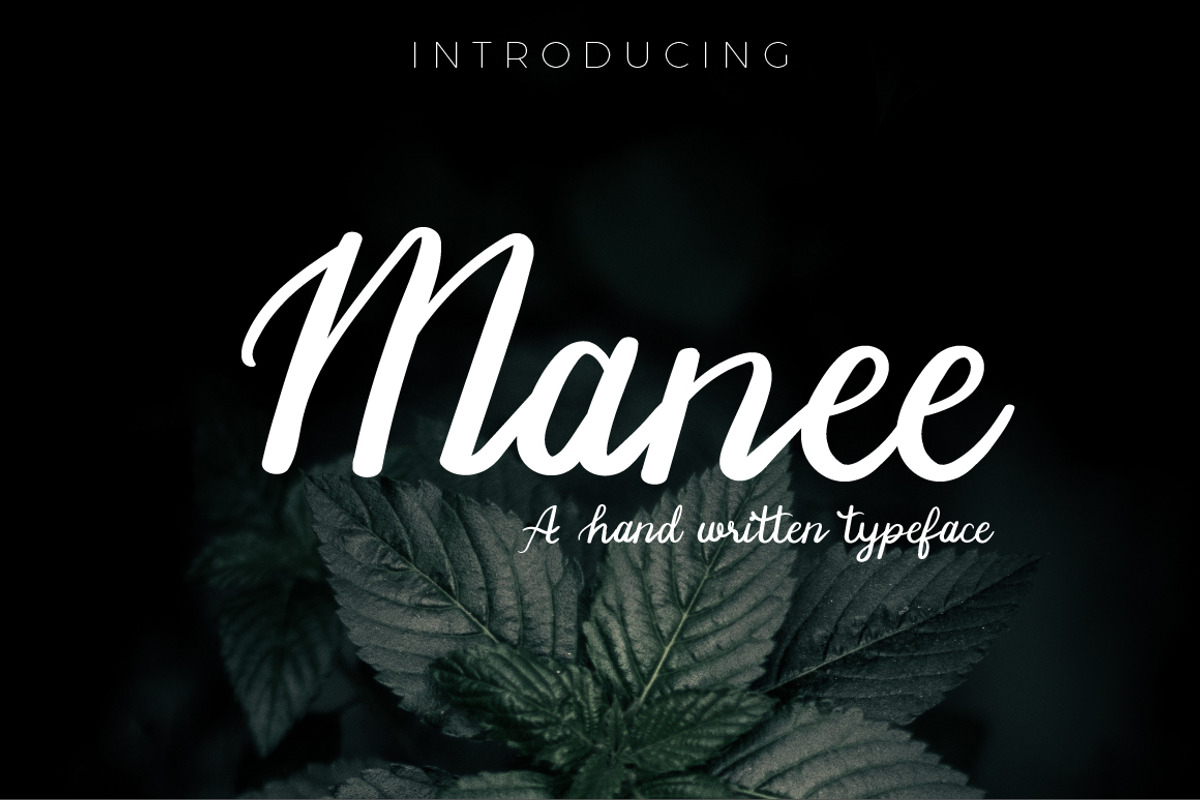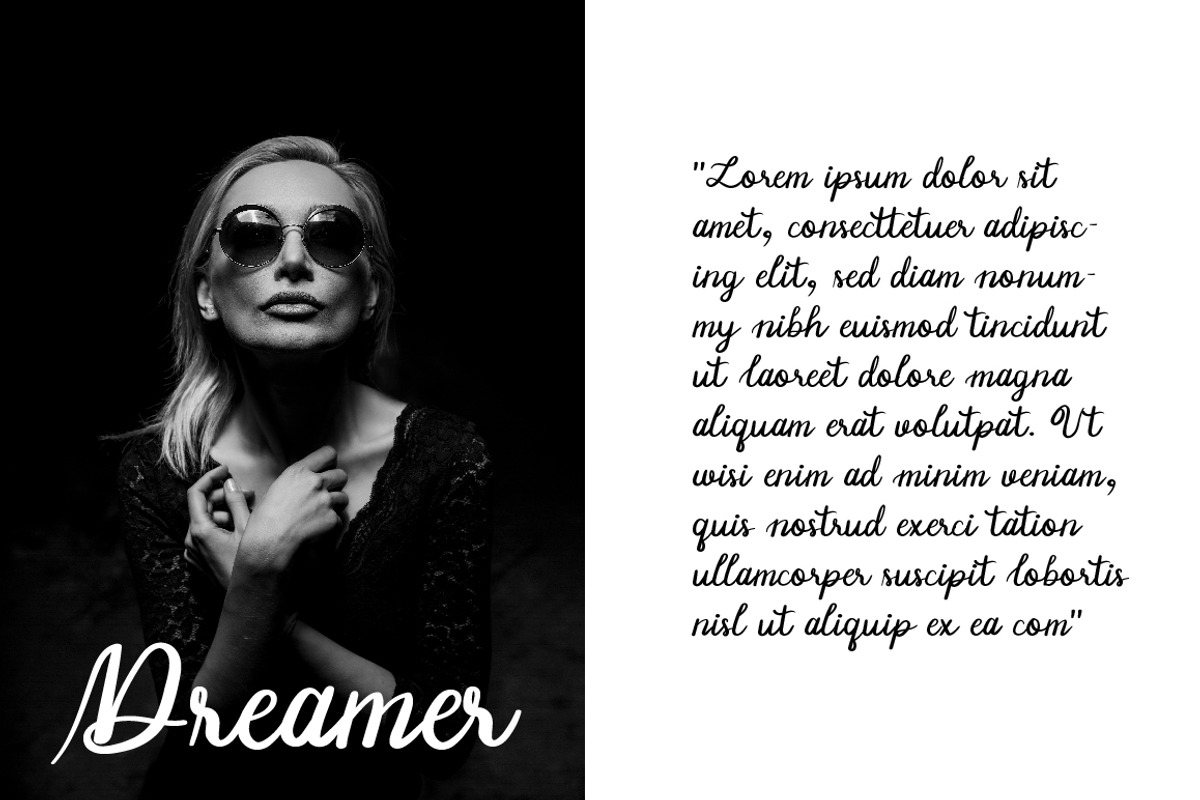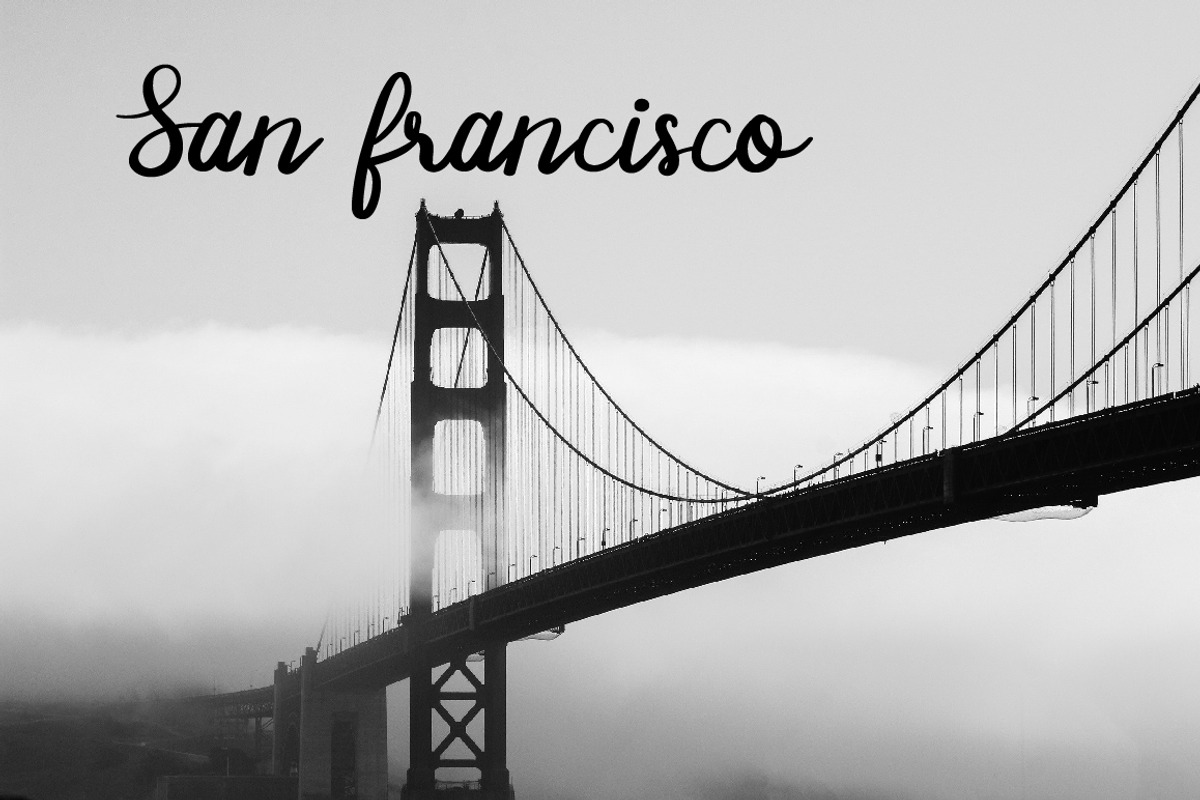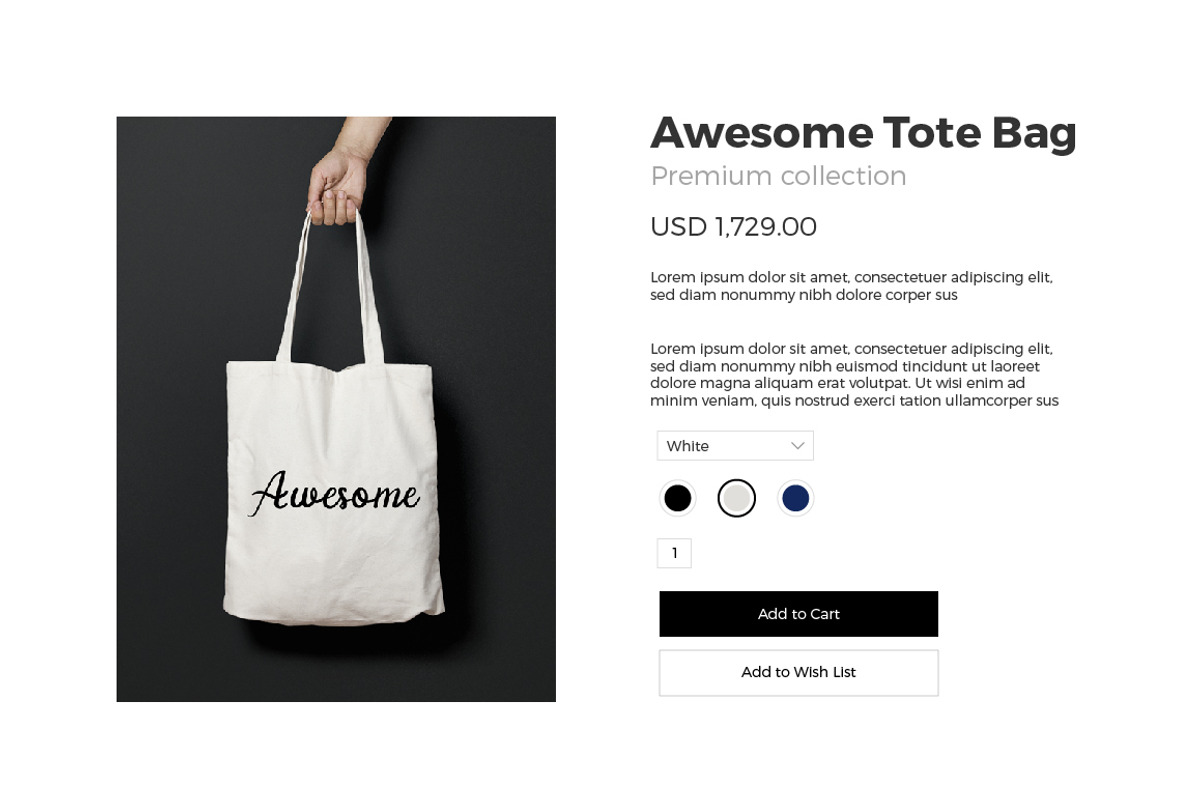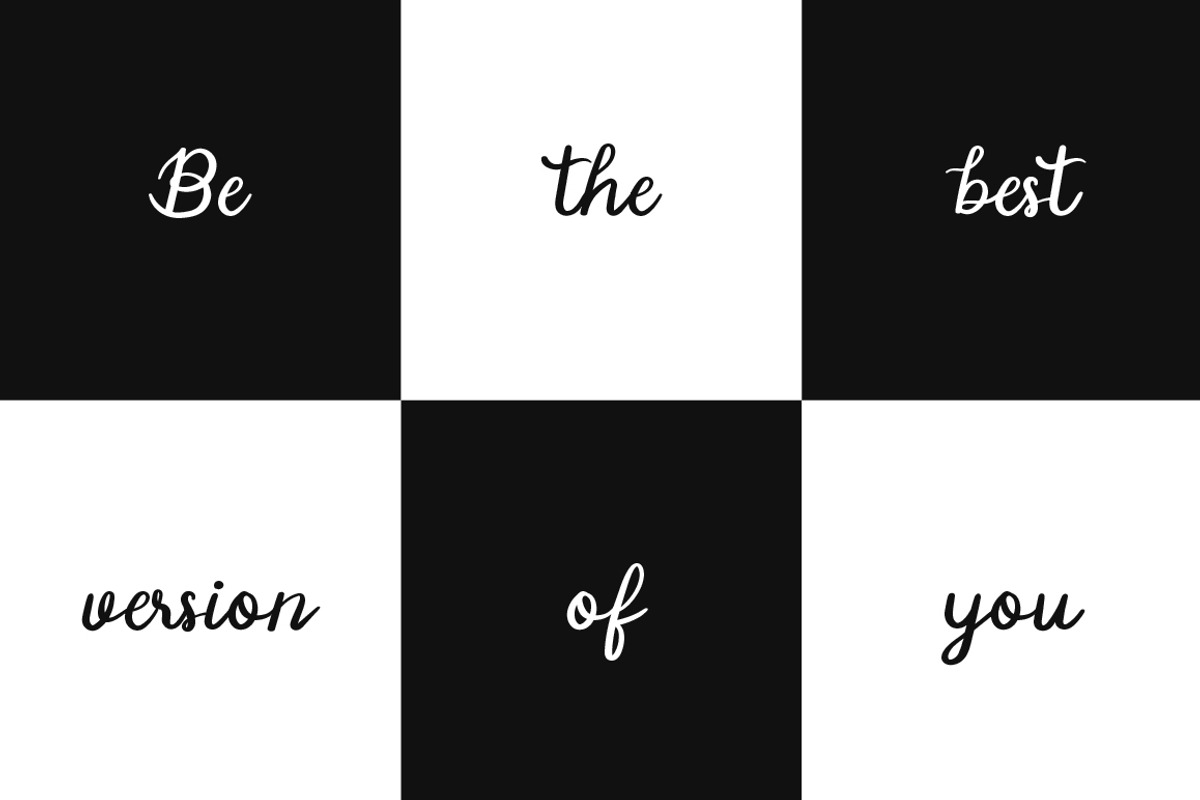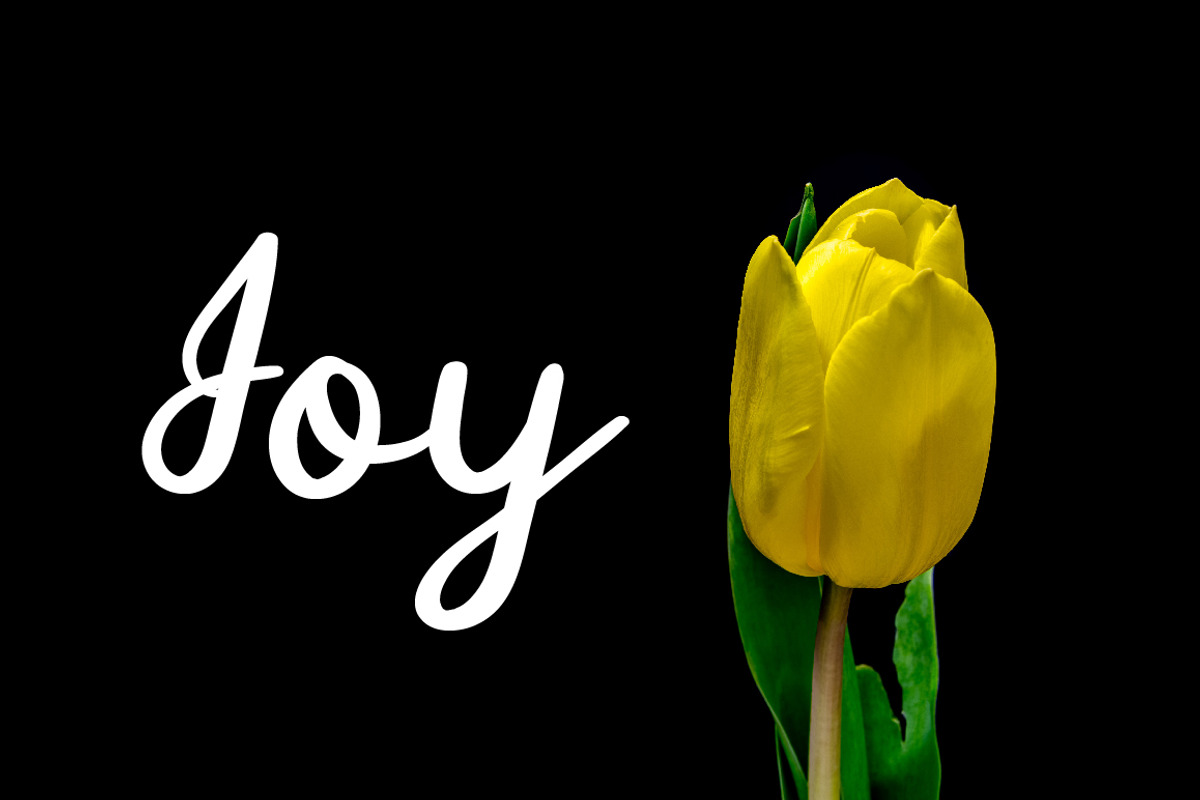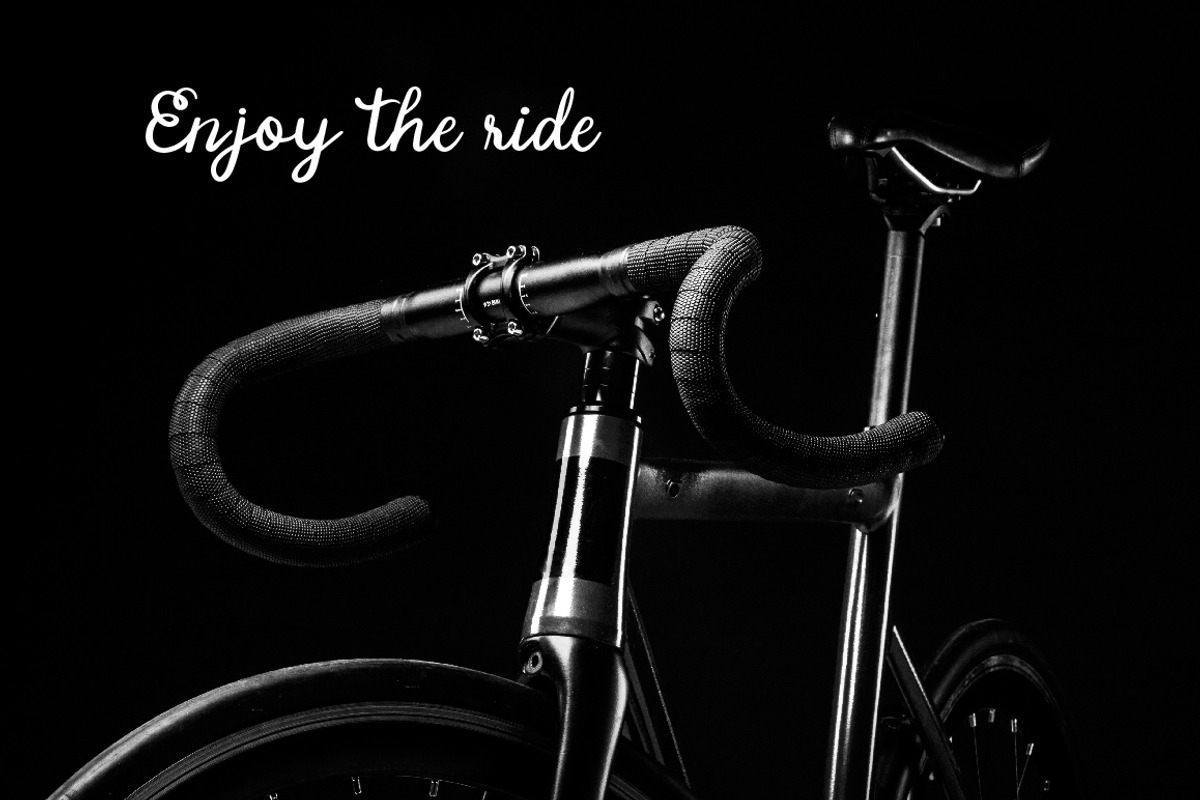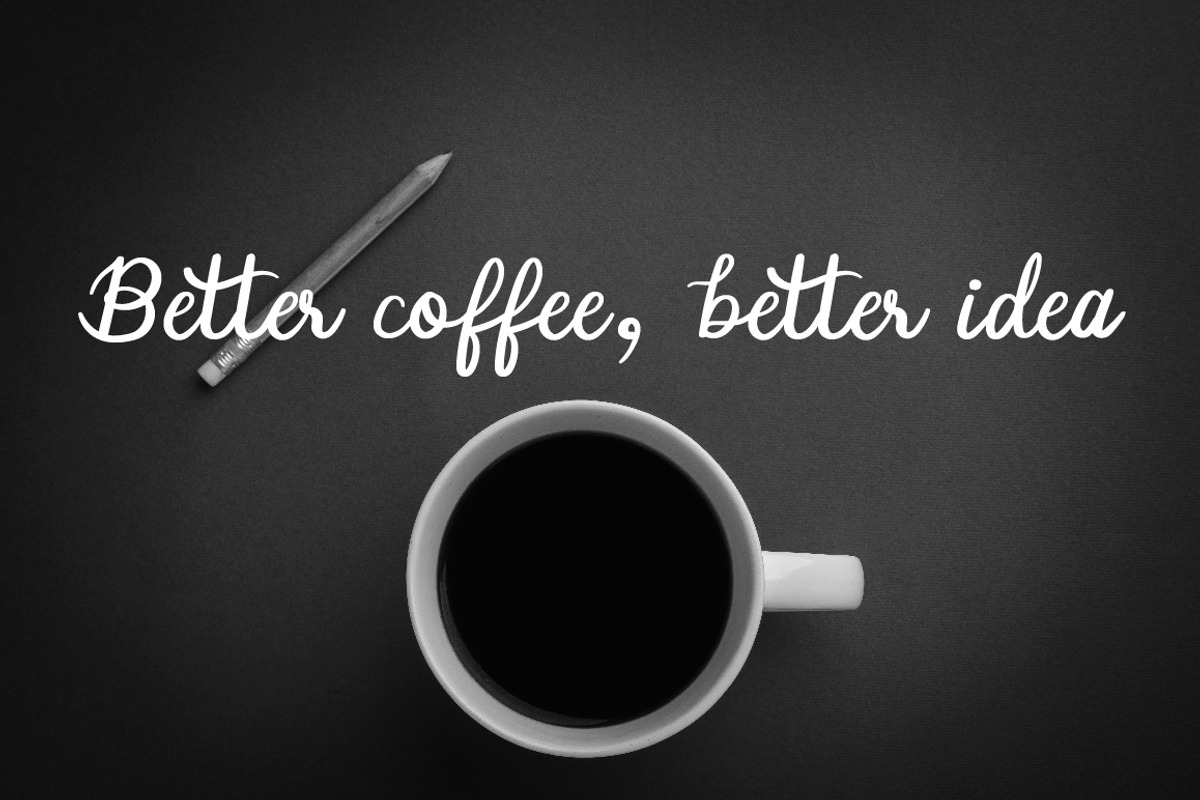
Manee Handwritten Typeface
Manee is a handwritten script typeface designed to give off a smooth, clean and optimism vibe.
Standard English(A-Z, a-z)
Western European languages supported, numbers(0-9), punctuations
Standard ligature tt(for handwriting font)
b, h, k, l, m, n, p, r, s, y initial forms